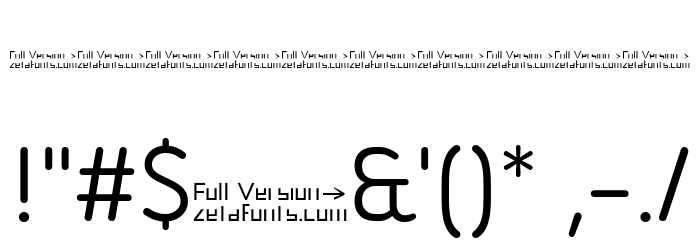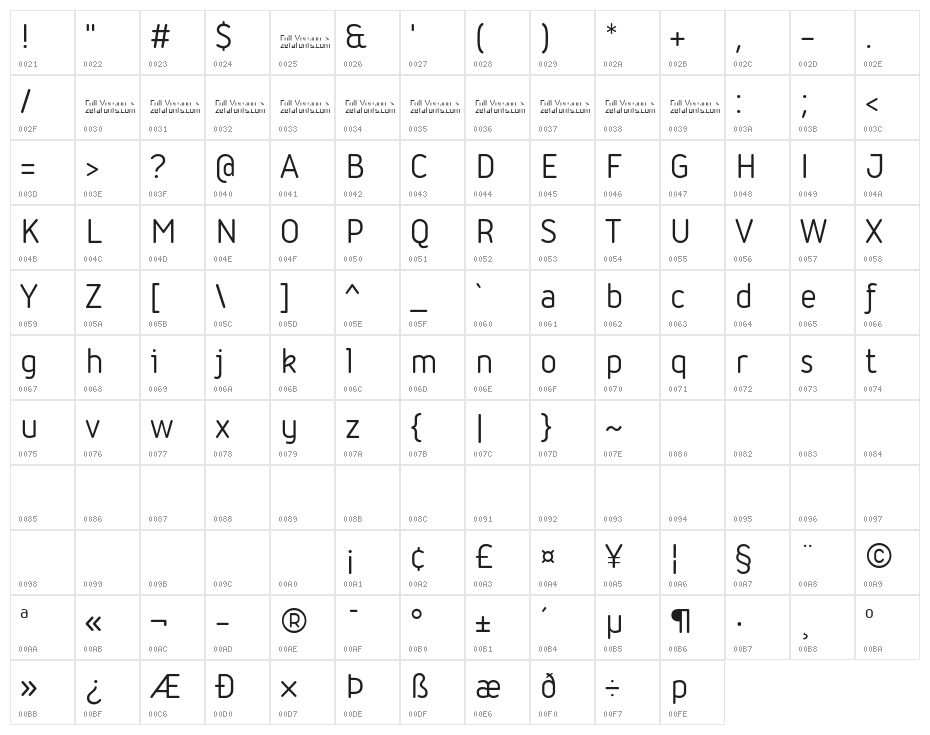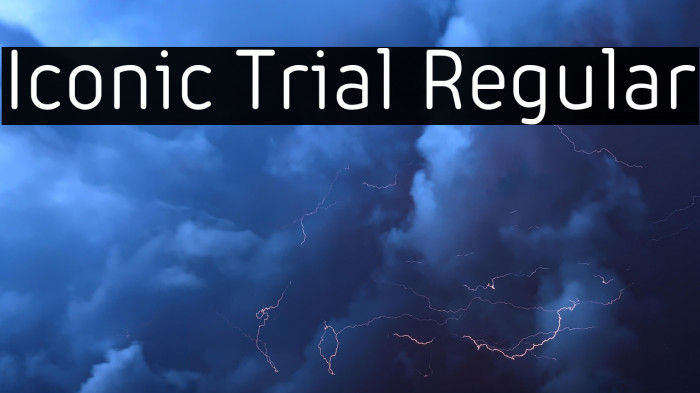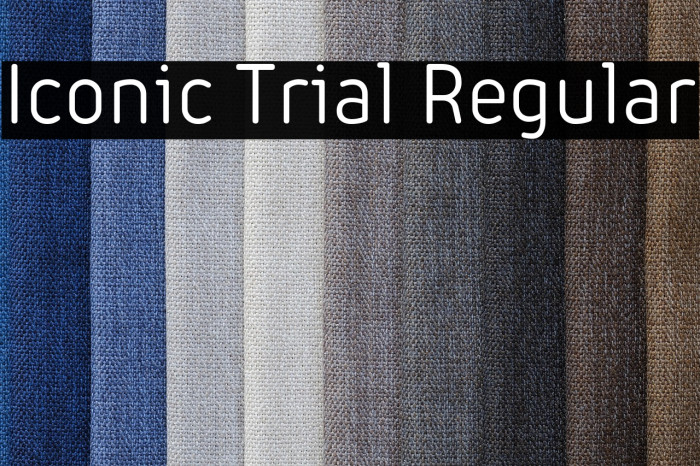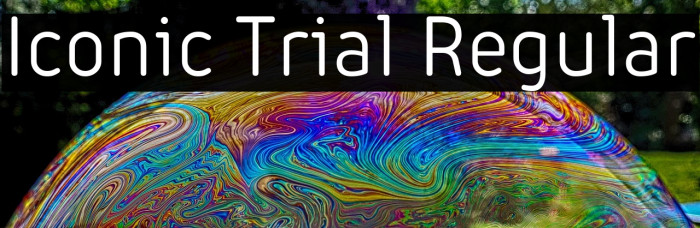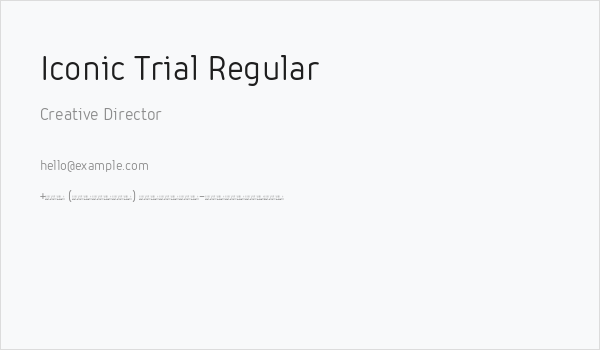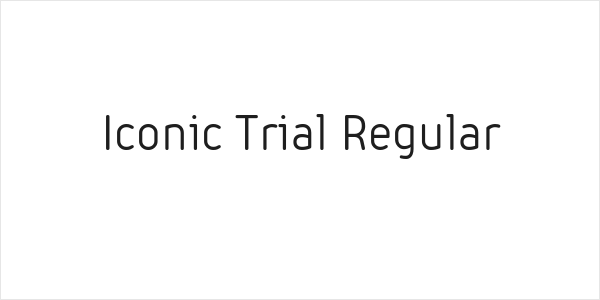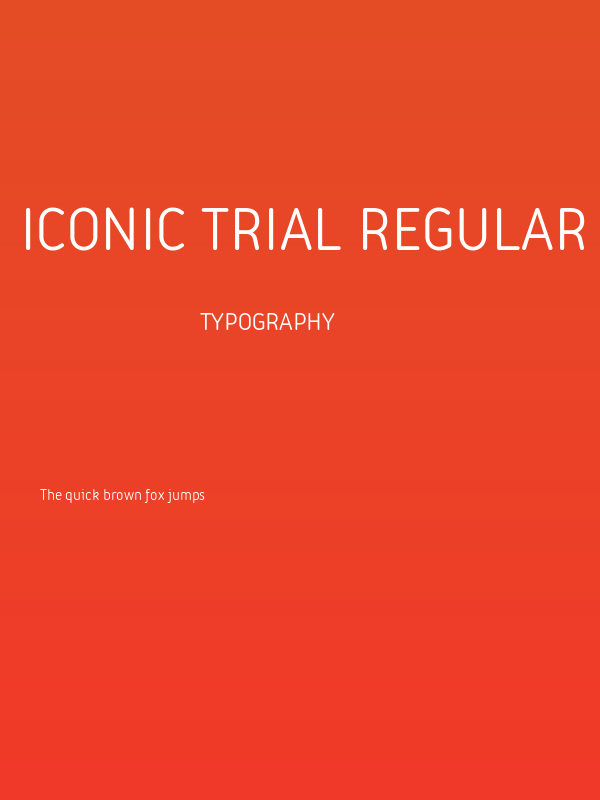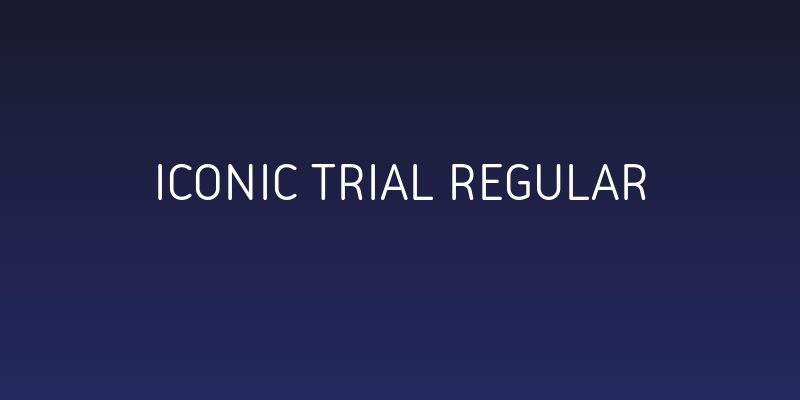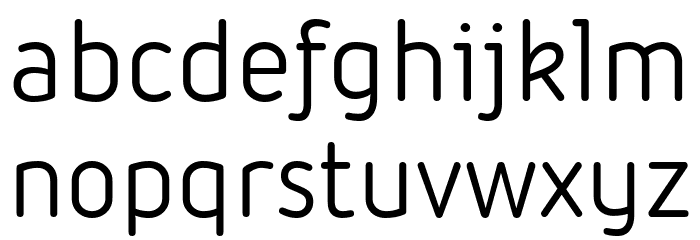
Iconic Trial Regular Font
Iconic Trial Regular Description
This font features a clean and modern design with rounded edges, giving it a friendly and approachable appearance. The characters are evenly spaced with a consistent stroke width, providing a harmonious and balanced look. Its simplicity and clarity make it highly legible, suitable for both digital and print media. The font includes a full set of uppercase and lowercase letters, numbers, and a variety of special characters, making it versatile for various design needs.